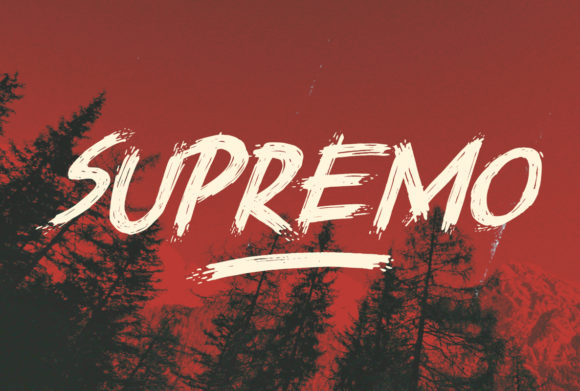
Prepare to embark on a spine-chilling adventure with Supremo, the ultimate script font that will raise the hairs on your neck and send shivers down your spine. Created by the ingenious mind of Ryn Pojas, Supremo is not just a font; it's a portal to a world of eerie enchantment.
Designed with meticulous attention to detail, each letter in Supremo exudes the essence of the supernatural. The curves and strokes dance across the page like whispers from the beyond, casting an ominous spell on your designs. Whether you're a seasoned designer or a creative soul seeking a touch of the macabre, Supremo is your gateway to captivating creations that haunt and allure.
With its perfectly crafted characters, Supremo lends an air of mystery and intrigue to any project it graces. Imagine your Halloween posters and invitations adorned with Supremo's ghostly presence, inviting trick-or-treaters to a night of spine-tingling fun. Or, unleash the horror in your graphic designs, creating bone-chilling visuals that will keep your audience on the edge of their seats.
Supremo's versatility extends beyond the realm of Halloween and horror. Its haunting beauty knows no bounds, making it an exceptional choice for projects seeking a touch of the unusual. Craft spellbinding logos that cast a mesmerizing spell, design book covers that evoke an atmosphere of suspense, or create social media posts that leave an indelible mark in the minds of your followers.
In a world where fonts often blend together, Supremo stands alone as a masterpiece of dark artistry. It's a font that demands attention, a font that captivates and enthralls. Embrace the power of Supremo and unleash your creativity like never before. Dare to delve into the depths of your imagination and bring forth designs that will haunt and enchant for years to come.